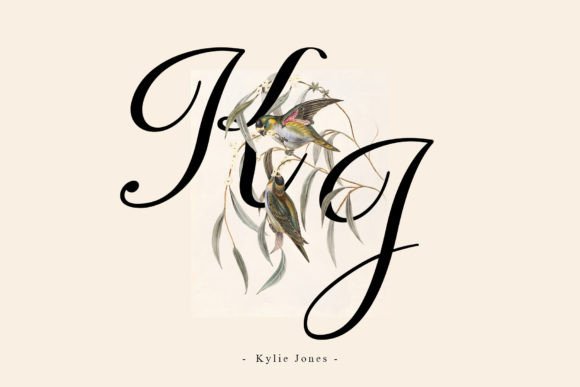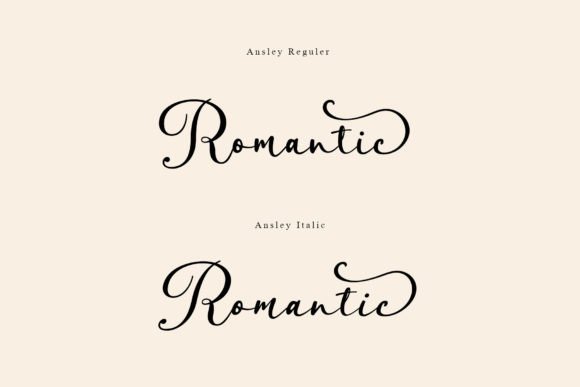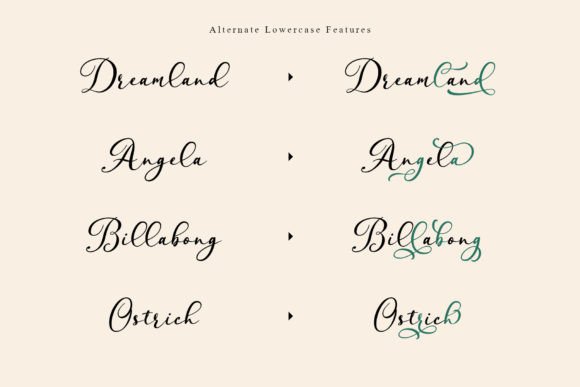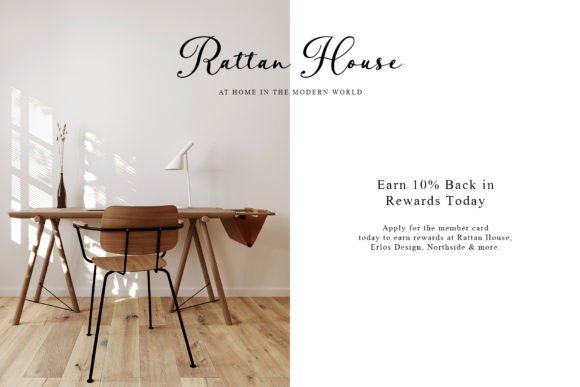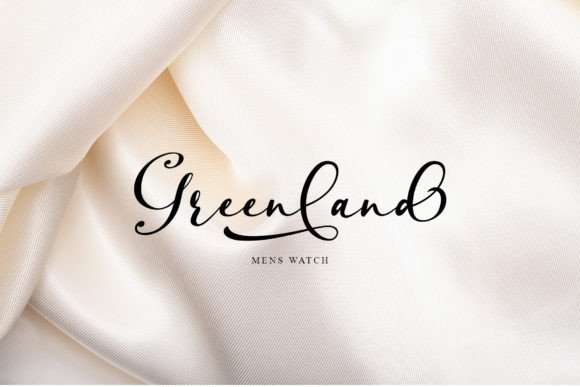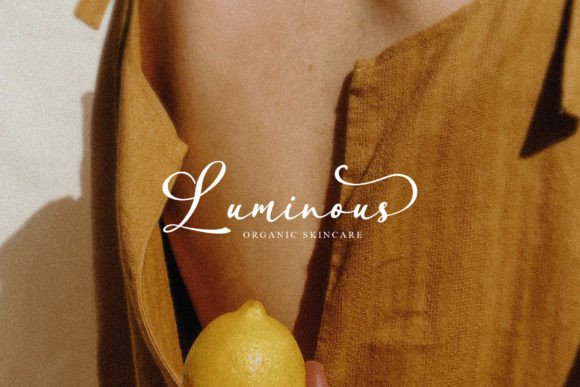
Introducing Ansley Font: The Epitome of Modern Calligraphy
In the realm of typography, few fonts manage to capture the essence of romance, elegance, and sophistication as Ansley Font does. This modern calligraphy font is a masterpiece of design, boasting beautiful, well-balanced characters that make it an incredibly versatile choice for a wide array of design projects. Whether you’re a designer looking for the perfect font for your next client’s wedding invitation or a crafter seeking an elegant touch for your handmade signs, Ansley Font is sure to exceed your expectations.
The Characteristics of Ansley Font
Ansley Font is distinguished by its romantic, elegant, and flowing lines, which are characteristic of high-end calligraphy. Each character is meticulously crafted to ensure balance and harmony, making the font a pleasure to read and behold. The fluidity of Ansley Font lends itself to creating visually stunning pieces that can elevate any design from ordinary to extraordinary.
One of the standout features of Ansley Font is its versatility. Its classic yet modern appeal allows it to seamlessly integrate into a wide pool of designs. Whether you’re working on:
- Invitations: Use Ansley Font to add a touch of sophistication to wedding invitations, birthday parties, or baby showers.
- Wedding Decorations: From ceremony programs to place cards, Ansley Font can add an elegant flair to your wedding decor.
- Signs: Perfect for directional signs, welcome signs, or any signage that requires a personal touch.
- Logos: For businesses that want to convey elegance and professionalism, Ansley Font can be a unique choice for logo design.
- Quotes: Beautifully display inspirational or love quotes on social media, blogs, or printed materials.
and more, Ansley Font proves to be an invaluable asset in your design toolkit.
Why Designers and Crafters Love Ansley Font
Designers and crafters alike are drawn to Ansley Font for several reasons:
- Ease of Use: Ansley Font is incredibly easy to use, even for those who are new to calligraphy or have limited design experience.
- Customization: The font’s flexibility allows for a high degree of customization, ensuring that your final design is truly one-of-a-kind.
- Timeless Appeal: Unlike trends that come and go, Ansley Font’s classic elegance ensures that your designs will remain stylish for years to come.
Tips for Using Ansley Font
To make the most out of Ansley Font, consider the following tips:
- Pair with Simplicity: Let Ansley Font be the focal point of your design by pairing it with simpler fonts or backgrounds.
- Experiment with Colors: While Ansley Font looks stunning in traditional calligraphy colors like gold or copper, don’t be afraid to experiment with different hues to match your brand or theme.
- Play with Sizes: The varying sizes of Ansley Font characters can add depth and interest to your designs. Experiment with different sizes to achieve the desired effect.
Ansley Font is more than just a font; it’s a design statement. Its romantic, elegant, and flowing modern calligraphy makes it the perfect choice for designers and crafters looking to add a touch of sophistication to their projects. With its versatility, ease of use, and timeless appeal, Ansley Font is sure to become a staple in your design arsenal. Whether you’re creating wedding decorations, signs, logos, or quotes, Ansley Font can help you achieve that extra special something that sets your designs apart.